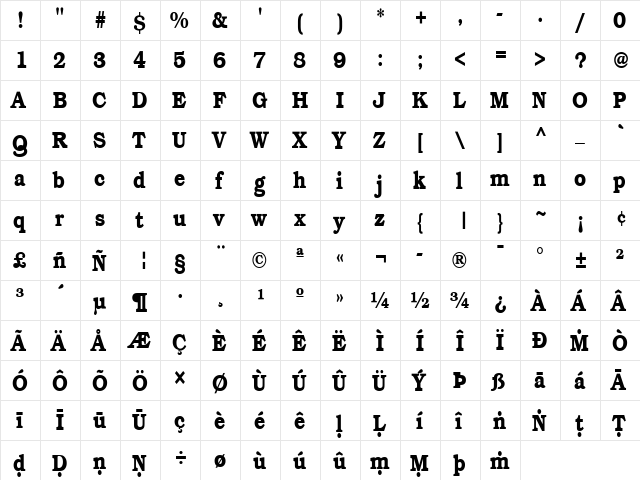
Pali Bookman Cond Regular
Design Context for Pali Bookman Cond Typeface
Pali Bookman Cond offers clean, dependable letterforms without strong stylistic allegiance, making it a practical choice for designers who need flexibility. Its narrow stance lets it pack a punch even in space-constrained designs.